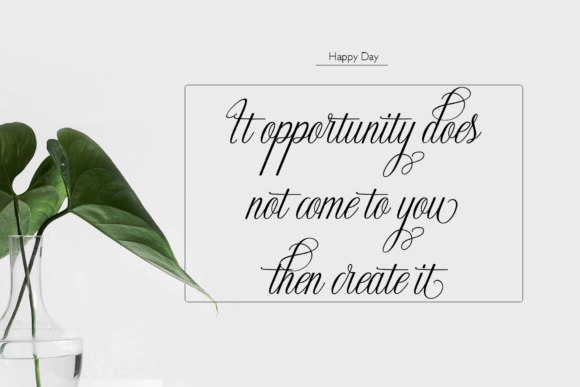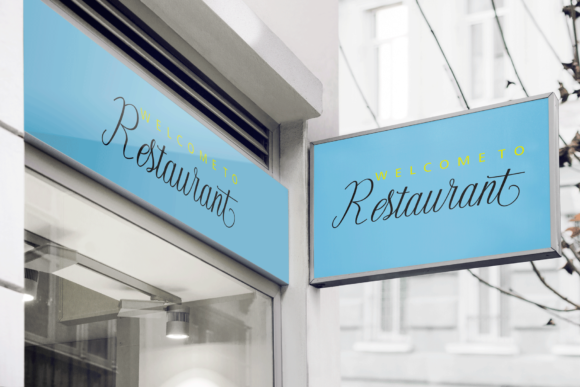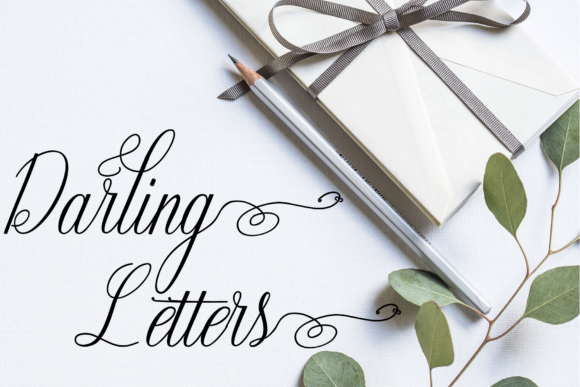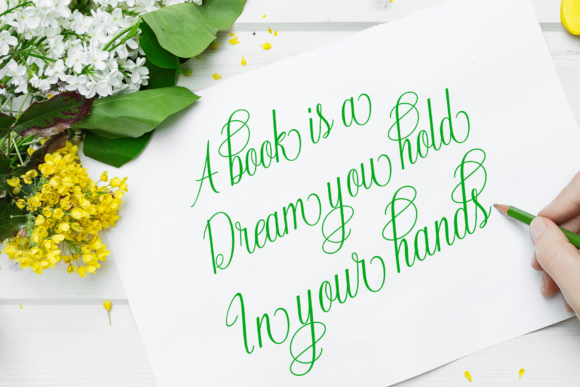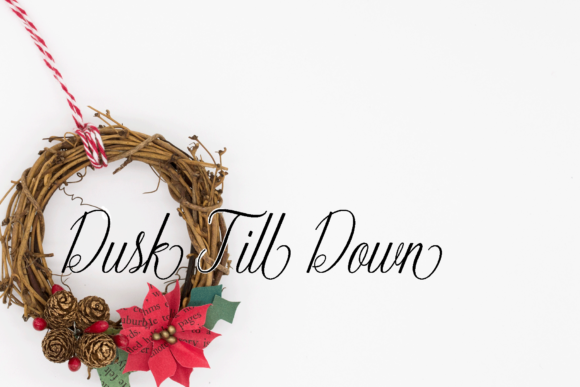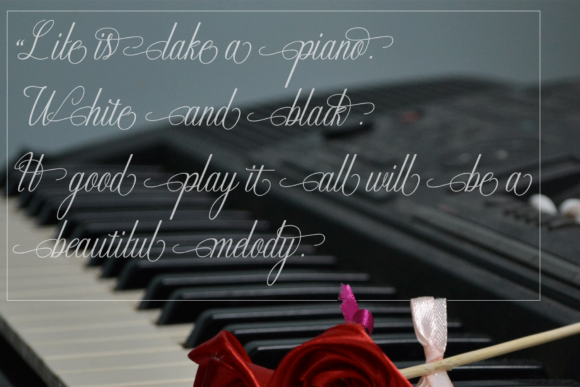
Introducing Gytha Font: Elevate Your Designs with Elegance and Sophistication
In the world of typography, a font can make or break a design. For designers and crafters seeking to add a touch of elegance and sophistication to their projects, look no further than the Gytha Font. This beautiful, handwritten font is designed to impress, boasting a range of features that set it apart from the rest.
What is Gytha Font?
Gytha is an elegant and flowing handwritten font that exudes class and refinement. With its PUA (Private Use Area) encoding, accessing the font’s extensive range of glyphs and swashes is effortless. This means that designers can easily incorporate the font’s beautiful alternates, ligatures, and other special characters into their work, taking their designs to the next level.
Key Features of Gytha Font
So, what makes Gytha Font so special? Here are just a few of its key features:
- Varying Baseline: Gytha’s unique varying baseline gives the font a sense of movement and fluidity, adding to its elegant and refined feel.
- Smooth Lines: The font’s smooth lines and curves create a beautiful, flowing effect that’s perfect for designs that require a touch of sophistication.
- Gorgeous Glyphs: With an extensive range of glyphs, including stunning alternates, designers have plenty of options to choose from when creating their designs.
The Benefits of Using Gytha Font
So, why should designers and crafters choose Gytha Font for their projects? Here are just a few benefits of using this beautiful font:
- Elegance and Sophistication: Gytha Font adds a touch of elegance and sophistication to any design, making it perfect for projects that require a refined feel.
- Versatility: With its range of glyphs, swashes, and alternates, Gytha Font can be used for a wide range of projects, from wedding invitations and stationery to branding and advertising.
- Contemporary and Fresh: While Gytha Font maintains its classy calligraphic influences, it also feels contemporary and fresh, making it perfect for designers who want to create modern, stylish designs.
Who is Gytha Font Suitable For?
Gytha Font is perfect for designers and crafters who work on a range of projects, including:
- Wedding Designers: With its elegant and refined feel, Gytha Font is perfect for wedding invitations, stationery, and other wedding-related designs.
- Branding and Advertising Agencies: The font’s versatility and range of glyphs make it ideal for branding and advertising projects, from logos and packaging to print and digital ads.
- Stationery and Paper Crafters: Gytha Font is a great choice for designers who create stationery, journals, and other paper crafts, adding a touch of elegance and sophistication to their designs.
In conclusion, Gytha Font is a beautiful, elegant, and flowing handwritten font that’s perfect for designers and crafters seeking to add a touch of sophistication to their projects. With its PUA encoding, varying baseline, smooth lines, gorgeous glyphs, and stunning alternates, Gytha Font is a versatile and easy-to-use font that’s suitable for a wide range of projects. Whether you’re working on wedding designs, branding and advertising projects, or stationery and paper crafts, Gytha Font is sure to impress. So why not fall in love with Gytha Font and take your designs to the highest levels?